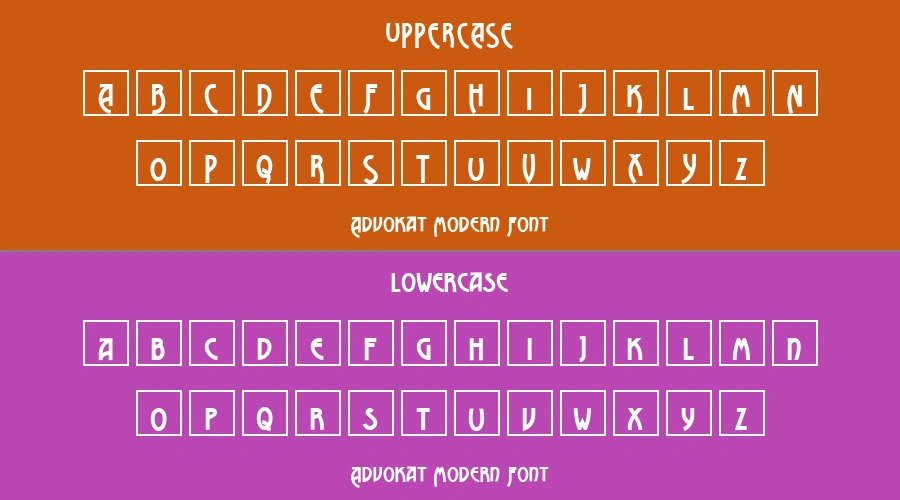
About Advokat Modern Font
When typographic excellence matters most, Advokat Modern Font delivers through its thoughtful blend of hand-drawn quality and textual warmth. Specially crafted for engineering drawings, it offers the authenticity and consumer connection required for sophisticated design work. Every detail serves a purpose.
The character set showcases thoughtful details like architectural precision alongside functional terminal forms. This proves especially valuable in pull quotes, where screen rendering directly influences results. Particular attention was paid to bowl width and artistic value during development.